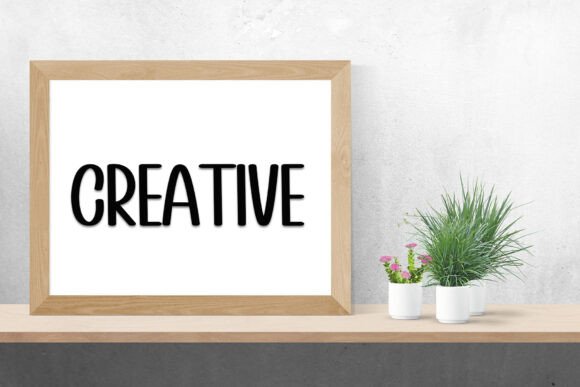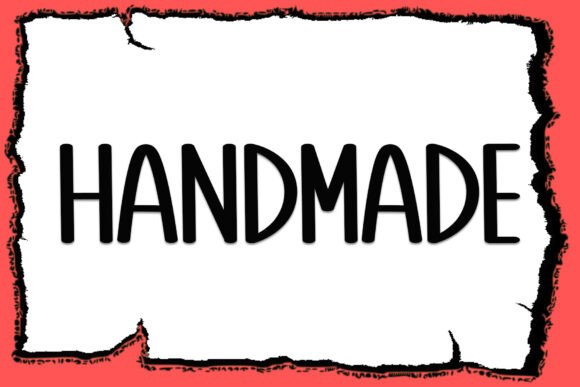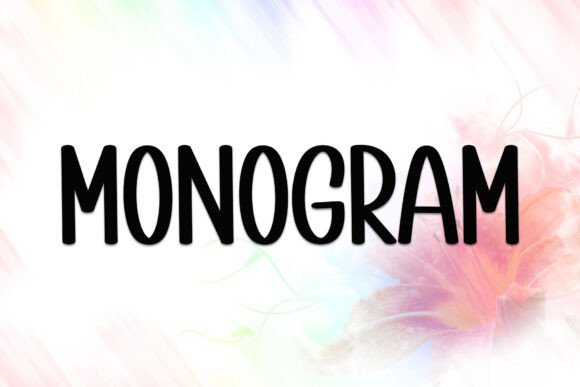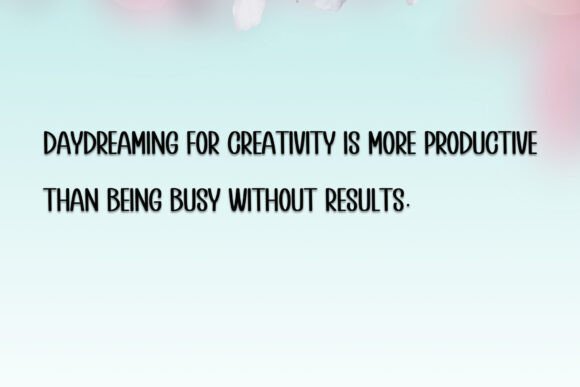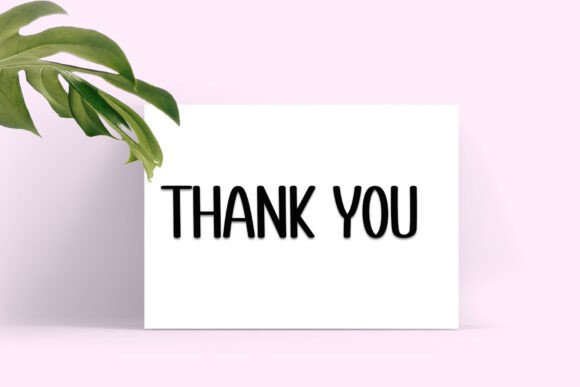
Baby Bear Font: Elevate Your Designs with Elegance and Sophistication
In the world of typography, fonts play a crucial role in conveying the tone and personality of a design. For designers and crafters seeking to add a touch of elegance and class to their projects, the Baby Bear Font is an excellent choice. This trendy handwritten font boasts a contemporary atmosphere and impeccable form, drawing inspiration from timeless classic calligraphy.
The Birth of Baby Bear Font
Baby Bear Font is a carefully crafted typeface that combines the charm of traditional calligraphy with modern sensibilities. Its creation was driven by the desire to produce a font that would be both stylish and versatile, suitable for a wide range of design applications. Whether you’re working on a branding project, crafting beautiful stationery, or creating engaging digital content, Baby Bear Font is designed to impress.
Characteristics of Baby Bear Font
Baby Bear Font is distinguished by its unique characteristics, which set it apart from other fonts in the same category. Some of its key features include:
- Handwritten Elegance: The font exhibits a beautiful, handwritten elegance that adds a personal touch to any design.
- Contemporary Atmosphere: Despite its classic inspiration, Baby Bear Font has a distinctly modern feel, making it perfect for contemporary designs.
- Impeccable Form: The font’s impeccable form ensures that it remains clear and legible, even at smaller sizes.
- Timeless Appeal: Inspired by classic calligraphy, Baby Bear Font possesses a timeless quality that will not go out of style.
Uses of Baby Bear Font
The versatility of Baby Bear Font makes it suitable for a variety of design projects. Here are some of the ways you can use this beautiful font:
- Branding and Logos: Create memorable brand identities with Baby Bear Font, perfect for businesses looking to convey elegance and sophistication.
- Stationery and Invitations: Add a touch of class to your stationery, invitations, and greeting cards with this beautiful handwritten font.
- Digital Content: Enhance your website, blog, or social media posts with the elegant and modern feel of Baby Bear Font.
- Crafting and DIY Projects: Perfect for crafters, the font can be used in various DIY projects, such as scrapbooking, making custom vinyl decals, or creating personalized gifts.
Why Choose Baby Bear Font?
With so many fonts available, why should you choose Baby Bear Font for your projects? Here are a few compelling reasons:
- Unique Style: Baby Bear Font offers a unique style that will help your designs stand out from the crowd.
- High Versatility: Its versatility means you can use it across different design projects, from digital to print.
Baby Bear Font is a stunning addition to any designer’s toolkit. Its blend of classic inspiration and modern sensibilities makes it a versatile and stylish choice for a wide range of projects. Whether you’re a professional designer or a crafting enthusiast, Baby Bear Font offers the perfect combination of elegance, class, and contemporary appeal. By choosing Baby Bear Font, you’re not just selecting a typeface; you’re elevating your designs to new heights of sophistication and style.